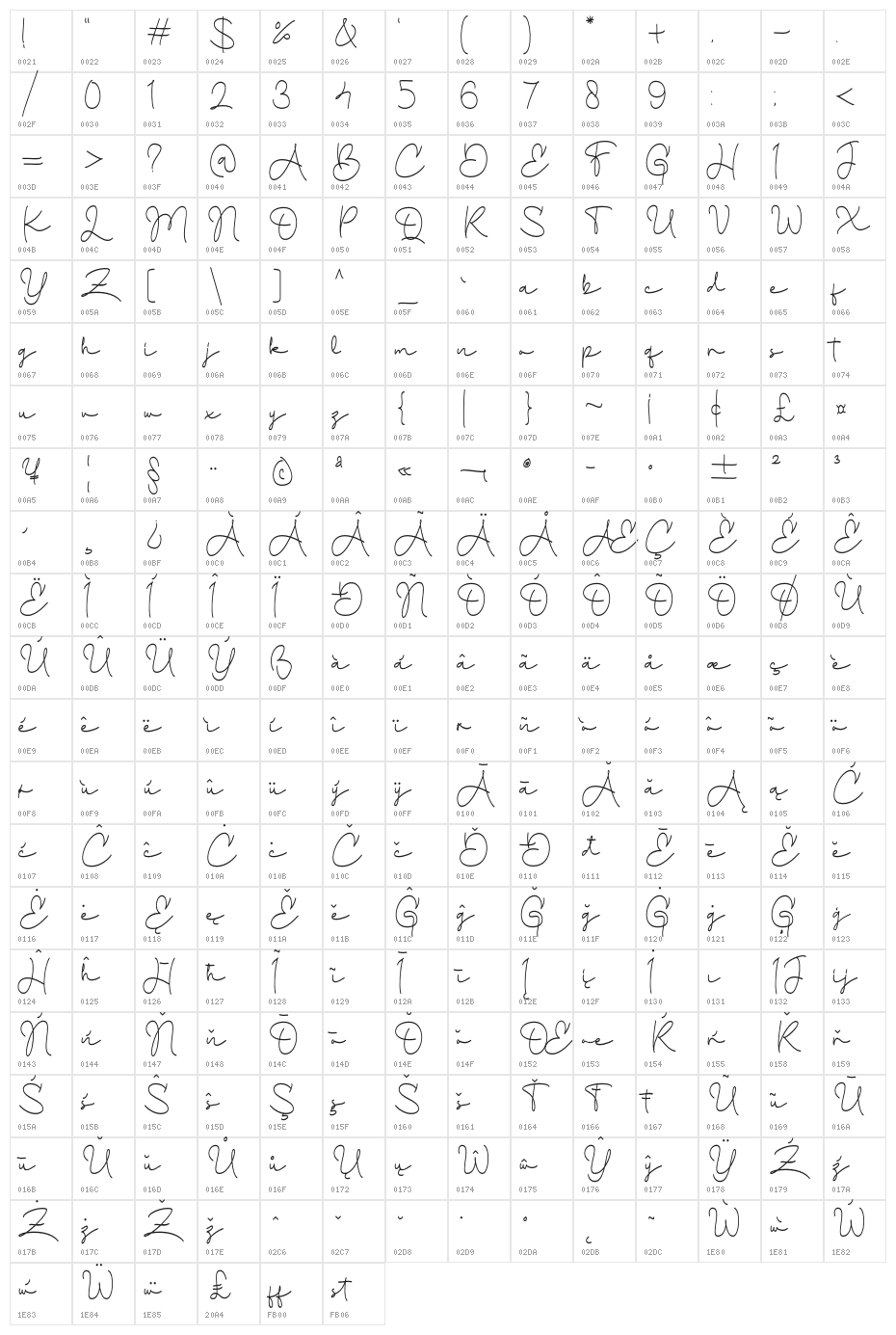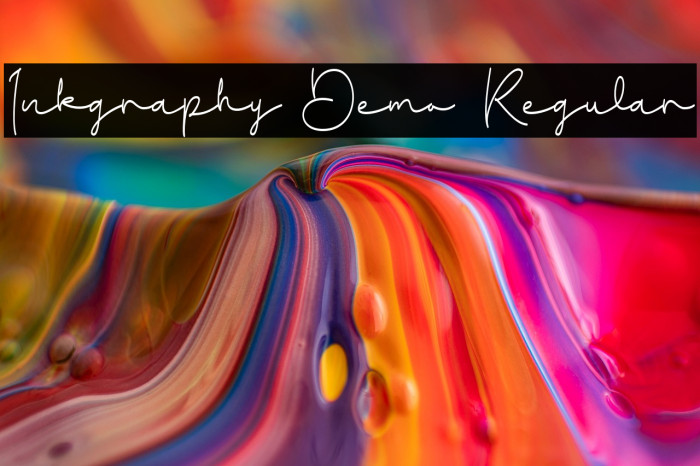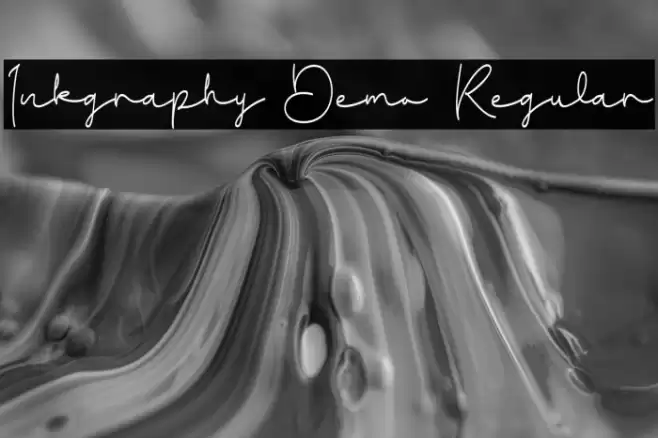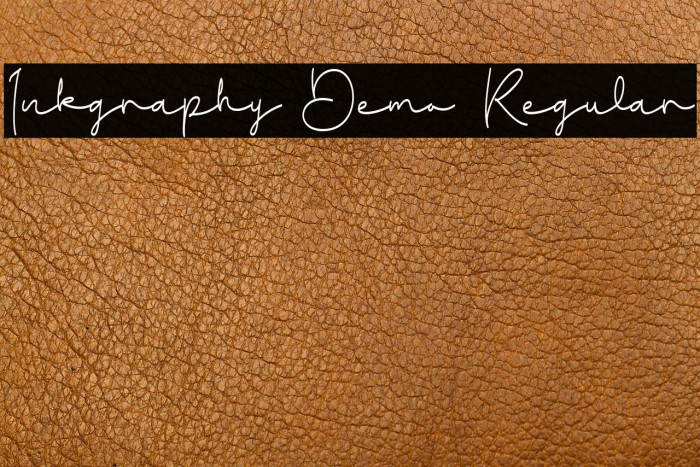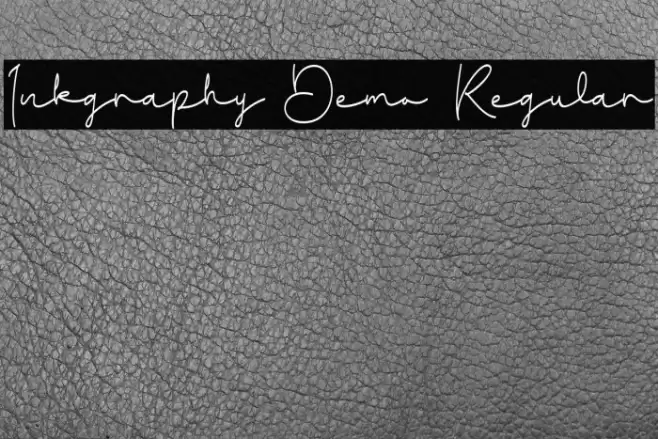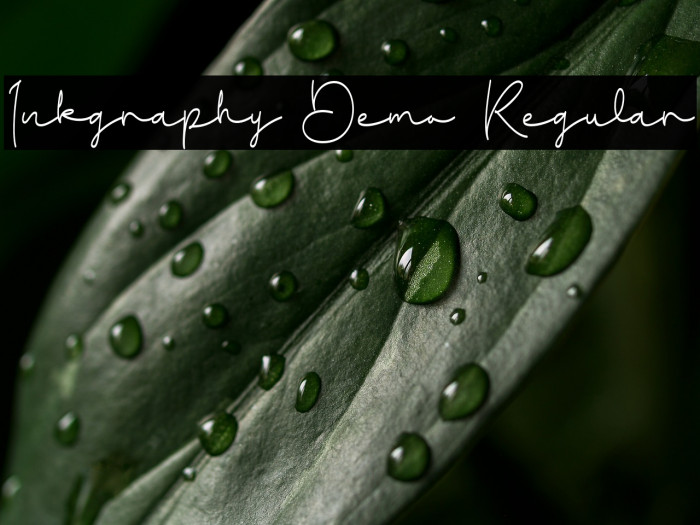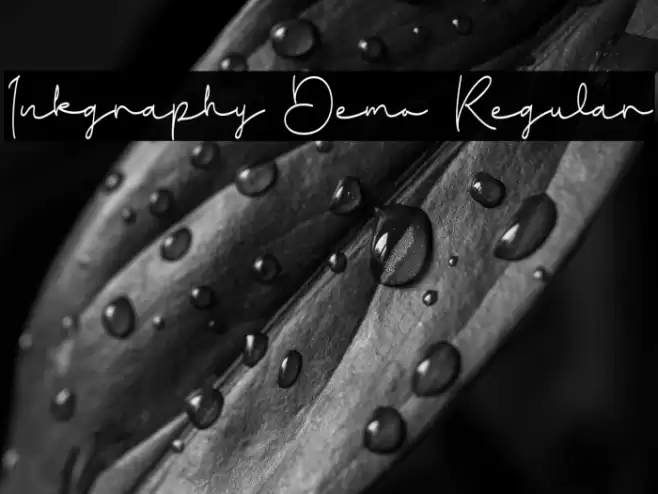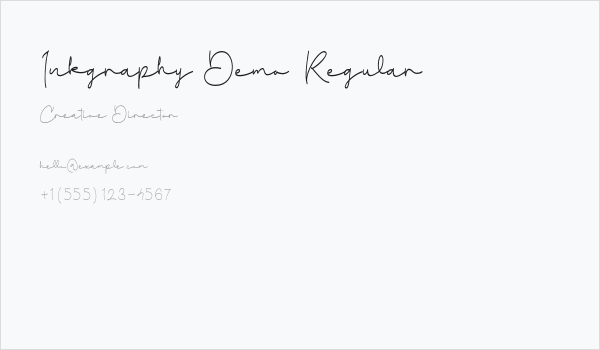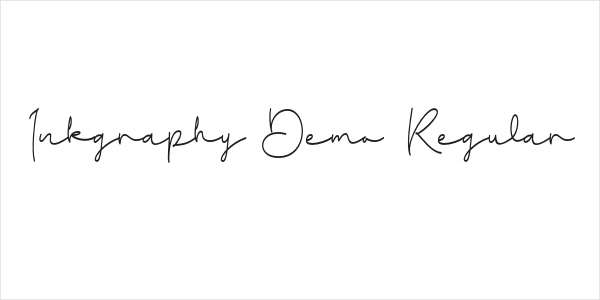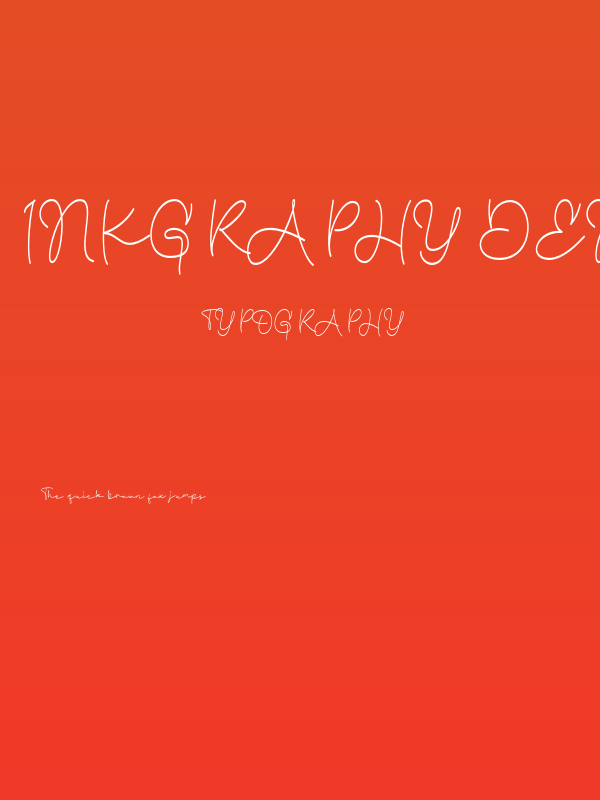
Inkgraphy Demo Regular Font
Inkgraphy Demo Regular Description
This font features a fluid, handwritten style that mimics the natural flow of ink on paper. The characters are elegantly connected, with smooth curves and a consistent stroke width that gives it a cohesive appearance. The uppercase letters maintain a graceful form, while the lowercase letters exhibit a charming, casual flair. Numbers and special characters are crafted with the same attention to detail, ensuring a harmonious look across all elements. This font is ideal for projects that require a personal touch, such as invitations, greeting cards, or branding materials.
| Overall Style | Decorative |
| Use Case | Logos, Headlines, Artistic projects |
| Proposed Projects | Ideal for invitations, greeting cards, personal branding, and artistic projects. |